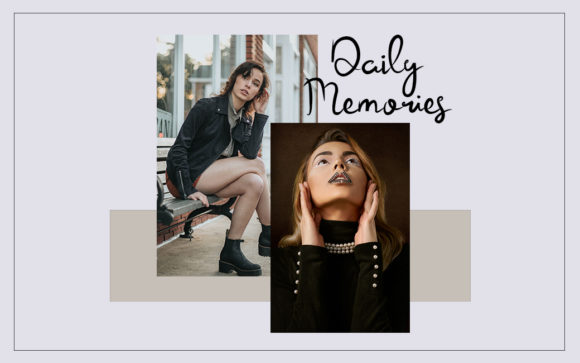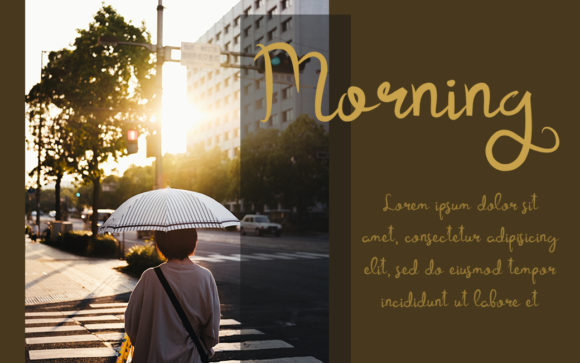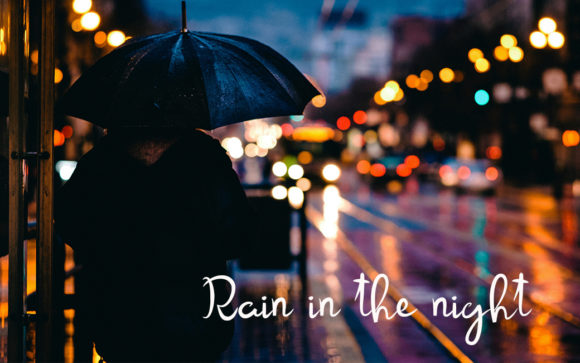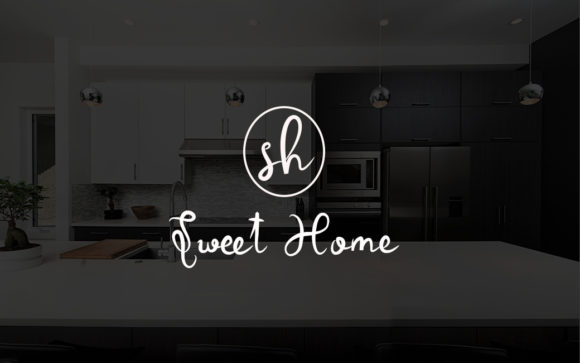
Discover the Beauty of Alawiyah Font: A Stunning Script with Organic Swashes
Are you tired of using the same old fonts for your design projects? Look no further than the Alawiyah Font, a breathtaking script that is sure to inspire your creativity. With its unique blend of organic and elegant features, this font is perfect for designers and crafters looking to add a touch of sophistication to their work.
What is Alawiyah Font?
Alawiyah Font is a one-of-a-kind script that boasts beautiful swashes, making it perfect for a variety of design applications. Its organic feel and stunning visuals set it apart from other fonts on the market, making it a must-have for anyone looking to elevate their design game.
Key Features of Alawiyah Font
- Organic and Elegant Design: Alawiyah Font features an organic design that exudes elegance and sophistication. Its unique shape and structure make it perfect for a variety of design projects.
- Beautiful Swashes: The font comes with stunning swashes that add a touch of creativity to your designs. You can use them to create beautiful headings, titles, and more.
- Versatile and Flexible: Alawiyah Font is highly versatile and can be used for a wide range of design applications, from branding and advertising to packaging and more.
- Easy to Read and Understand: Despite its ornate design, Alawiyah Font is easy to read and understand, making it perfect for body text and other applications where readability is key.
Who Can Benefit from Alawiyah Font?
Alawiyah Font is perfect for a variety of designers and crafters, including:
- Graphic Designers: If you’re a graphic designer looking for a unique and elegant font to add to your arsenal, Alawiyah Font is a great choice.
- Branding and Advertising Agencies: Alawiyah Font is perfect for branding and advertising agencies looking to create stunning and memorable campaigns.
- Crafters and Makers: If you’re a crafter or maker looking for a beautiful font to use in your handmade projects, Alawiyah Font is a great option.
- Digital Artists: Digital artists can use Alawiyah Font to add a touch of elegance and sophistication to their artwork.
How to Use Alawiyah Font
Here are a few tips for getting the most out of Alawiyah Font:
- Experiment with Different Sizes and Colors: Alawiyah Font looks great in a variety of sizes and colors. Experiment with different combinations to find the one that works best for your design.
- Use Swashes to Add Creativity: The swashes in Alawiyah Font are a great way to add creativity and visual interest to your designs. Use them to create beautiful headings and titles.
- Pair with Other Fonts: Alawiyah Font pairs well with a variety of other fonts. Experiment with different combinations to find the one that works best for your design.
Alawiyah Font is a stunning and organic script that is sure to inspire your creativity. With its beautiful swashes and elegant design, it’s perfect for designers and crafters looking to add a touch of sophistication to their work. Whether you’re a graphic designer, branding agency, or crafter, Alawiyah Font is a great choice for any design project.